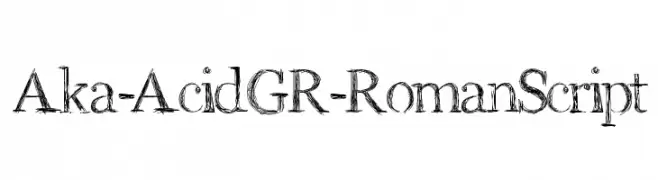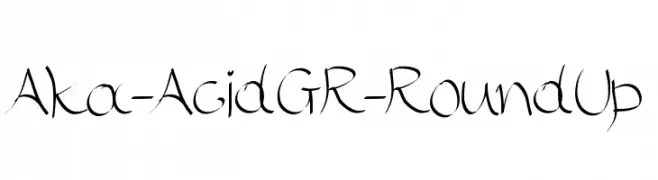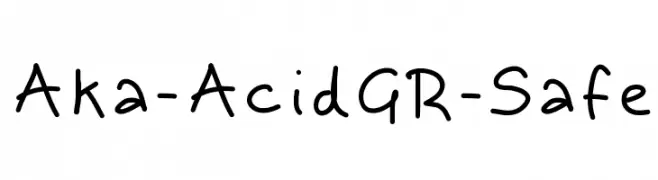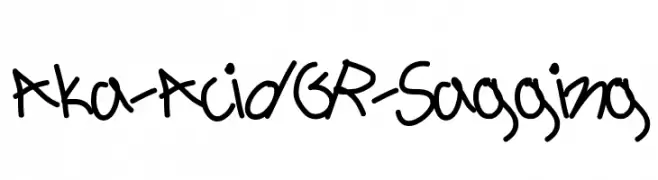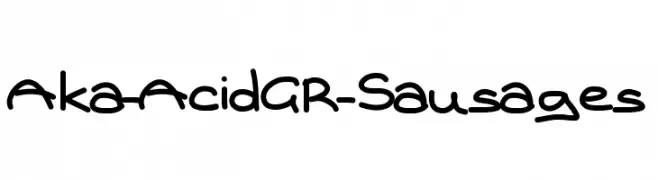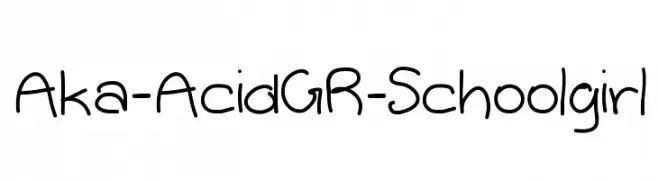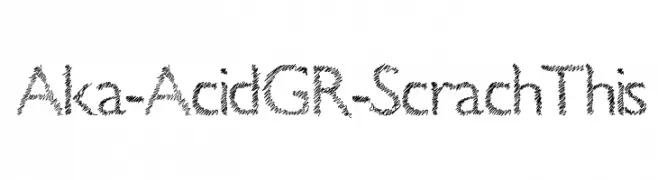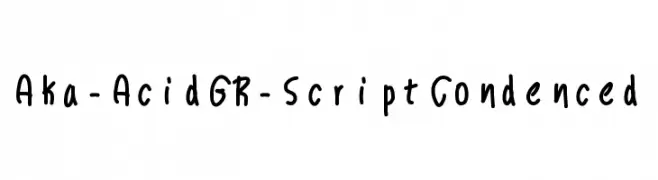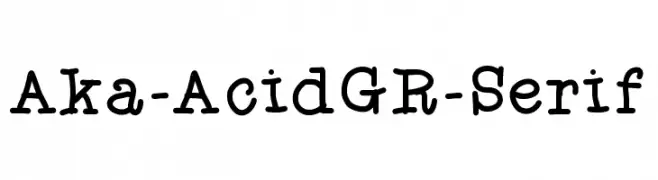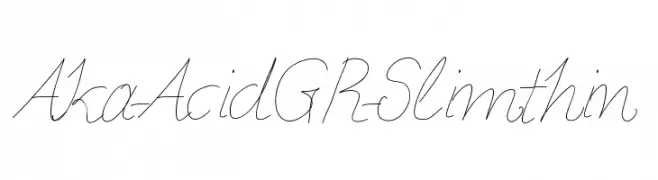
A sketch-like, hand-drawn font with textured, artistic strokes.
A modern, calligraphic font with fluid strokes and artistic flair.
A playful, informal handwritten font with rounded, consistent strokes.
A playful, dynamic handwritten font with bold, fluid strokes.
A playful, handwritten font with rounded, whimsical characters.
A scratchy, hand-drawn font with an energetic and edgy style.
A playful, hand-drawn script font with a condensed and bold style.
A playful, hand-drawn serif font with bold, rounded serifs and irregular strokes.
A delicate, thin script font with elegant, flowing lines.
A dynamic, expressive font with tall, narrow letterforms and sharp strokes.
A pixelated, grid-like font with a retro digital aesthetic.
A playful, casual handwritten font with uneven strokes and dynamic lines.
An artistic calligraphic font with dynamic strokes and expressive curves.
A bold, geometric font with a futuristic, digital style.
A futuristic and geometric font with a sleek, modern design.
A bold, geometric font with a digital, pixel-art style.
A bold, pixelated font with a digital, geometric style.
A bold, hand-drawn font with thick, uneven strokes and a playful, energetic style.
A playful, handwritten font with thin, irregular strokes and a casual style.
A playful, handwritten font with a condensed and casual style.
A playful, hand-drawn font with rounded, bold characters and a casual style.
A wavy, trembling font with thin, irregular strokes for a dynamic look.
A futuristic, triple-line geometric font with a bold and dynamic style.
A pixelated, blocky font with a retro digital aesthetic.
A playful, casual handwritten font with irregular strokes and a whimsical feel.
A playful and whimsical script font with curly, looping letterforms.
A playful, handwritten font with dynamic, flowing lines and a casual style.
A bold, geometric font with a strong, industrial style.
A playful, childlike font with bold, rounded strokes and a whimsical, hand-drawn style.
A bold, textured font with a playful, pixelated style.
A playful, bold font with rounded, bubbly characters.
A bold, playful, hand-drawn style font with irregular strokes and a dynamic feel.
A bold, handwritten-style font with dynamic and fluid strokes.
A bold, distressed font with a grunge, textured style.